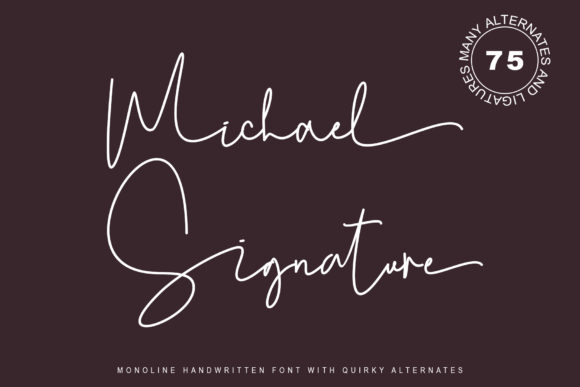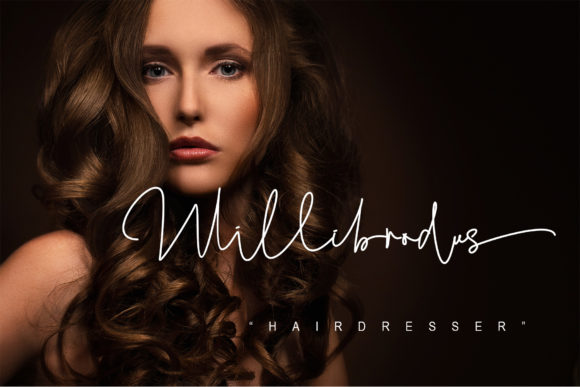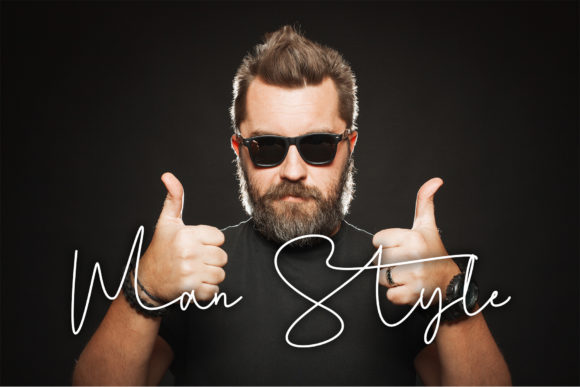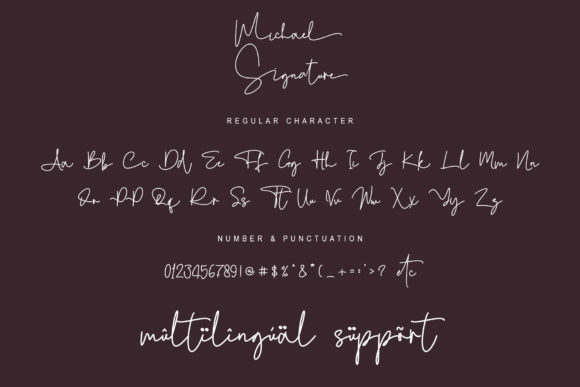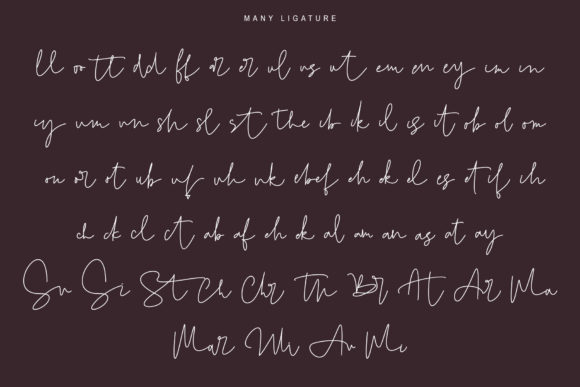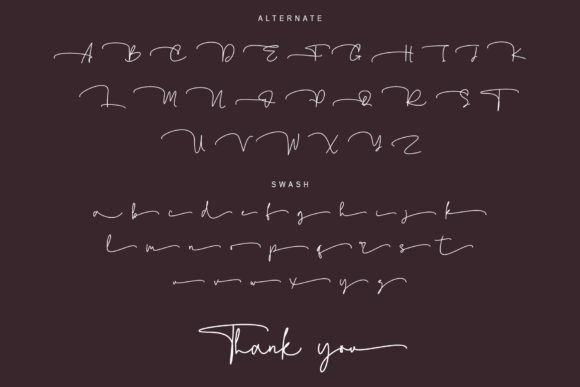
About Michael Signature Font
Michael Signature is a thin and cursive handwritten font. It looks beautiful on a variety of designs requiring a personalized style, such as wedding invitations, thank you cards, weddings, greeting cards, logos and so on. This font is PUA encoded which means you can access all of the glyphs and swashes with ease!